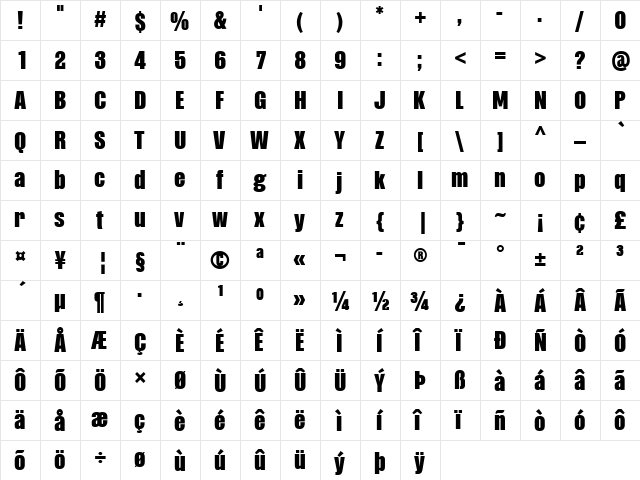
PF Fusion Sans Pro Black
| Foundry | Parachute蠗orldwide |
| Designer | Panos Vassiliou |
Design Context for PF Fusion Sans Pro Typeface
PF Fusion Sans Pro takes a measured approach to typography — its balanced proportions and neutral character make it a reliable workhorse for both digital and print work.